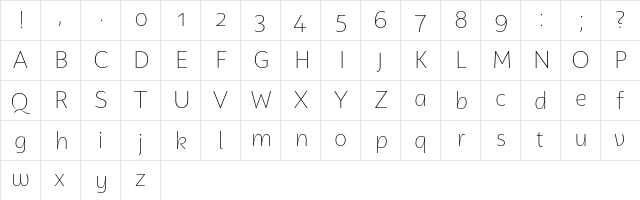
Campuni Demo Extra Light
| Foundry | Moritz Kleinsorge |
| Designer | Moritz Kleinsorge |
Design Context for Campuni Demo Typeface
Campuni Demo takes a measured approach to typography — its balanced proportions and neutral character make it a reliable workhorse for both digital and print work. Its slender proportions lend an understated elegance to any composition.
Pro Tip: Use Campuni Demo in both headline and body roles to test its range before committing to a single application.